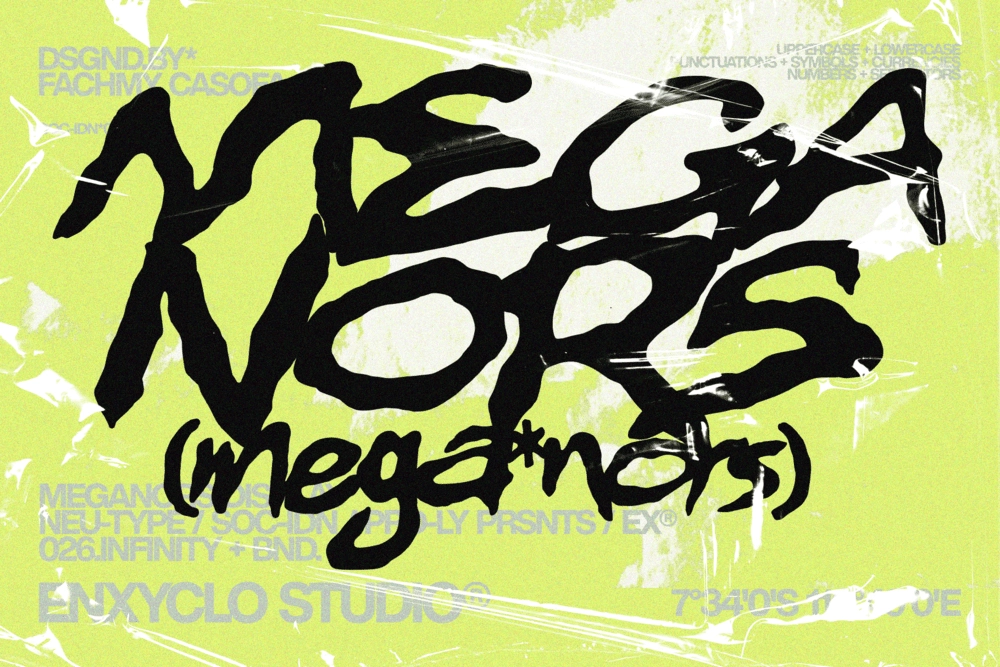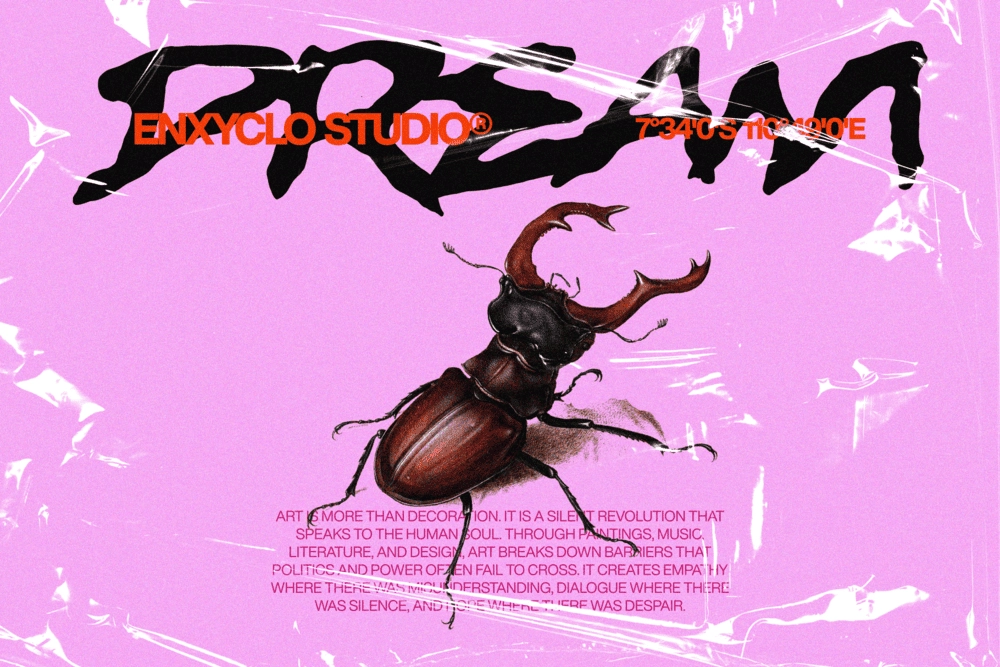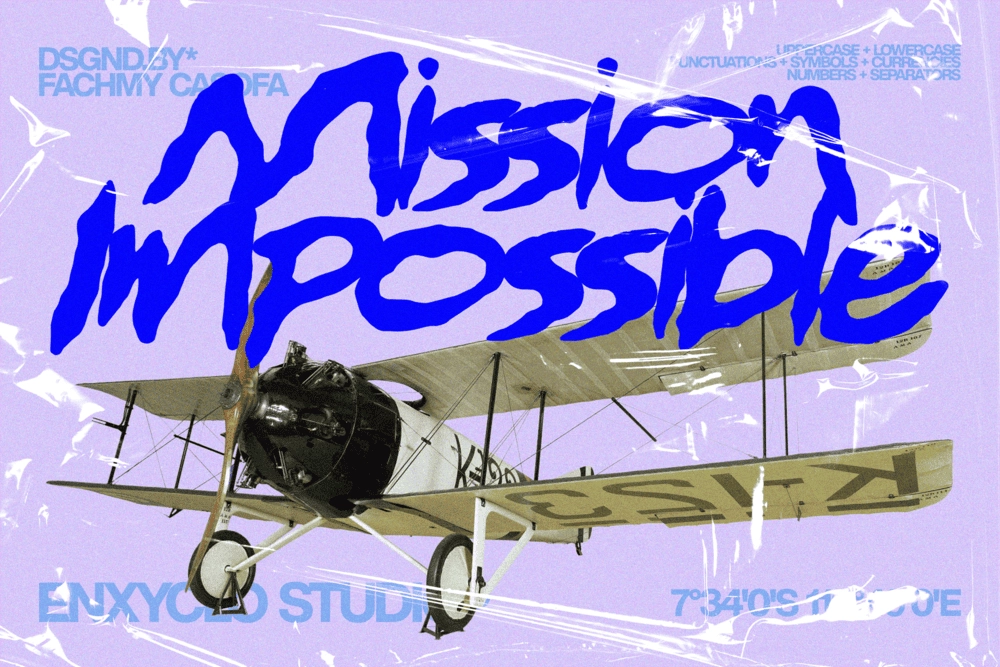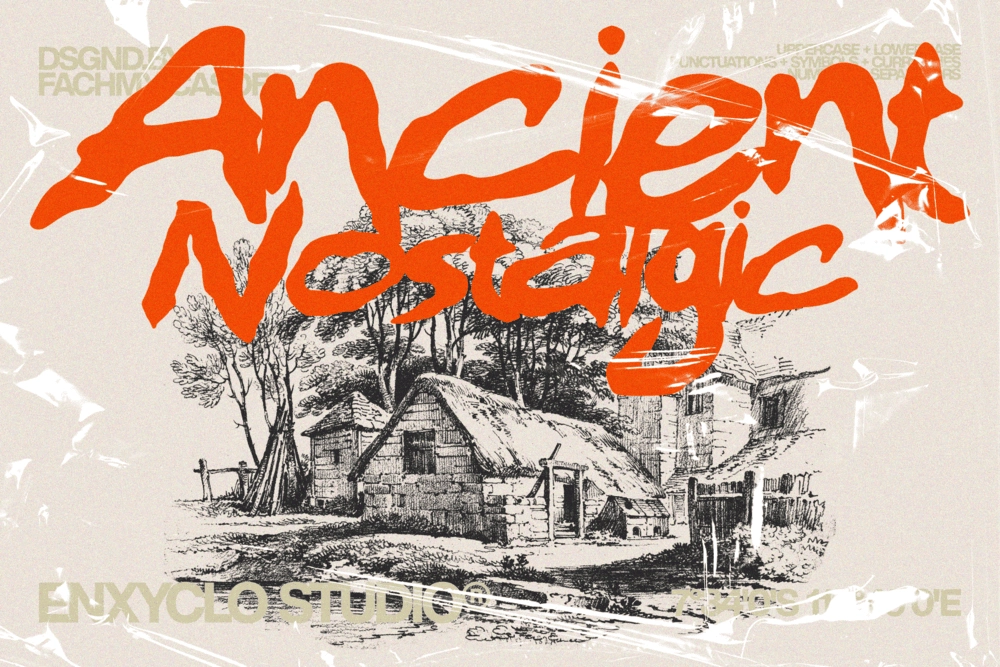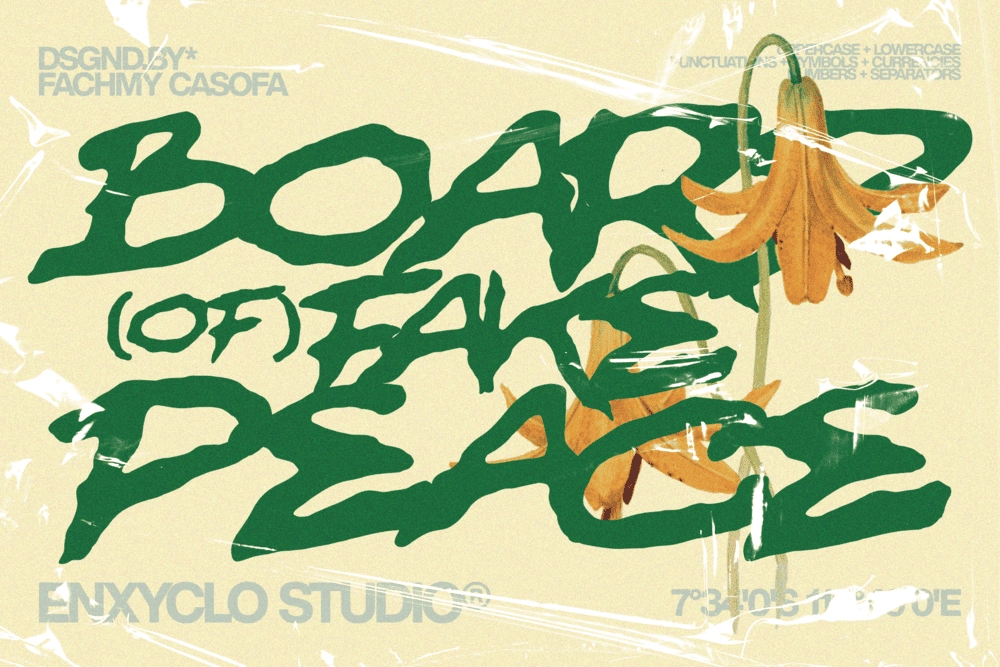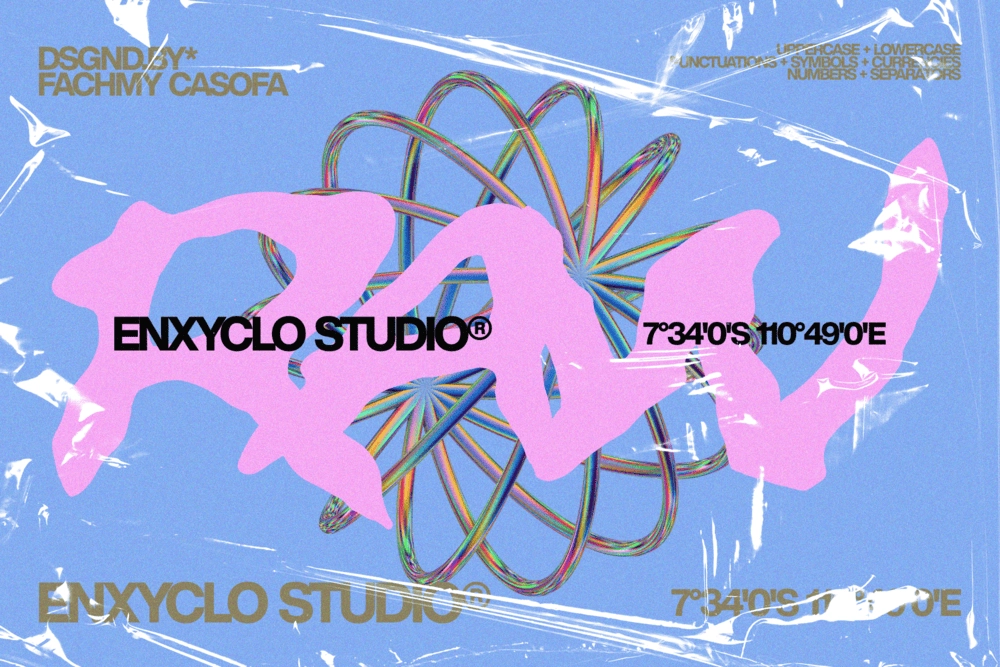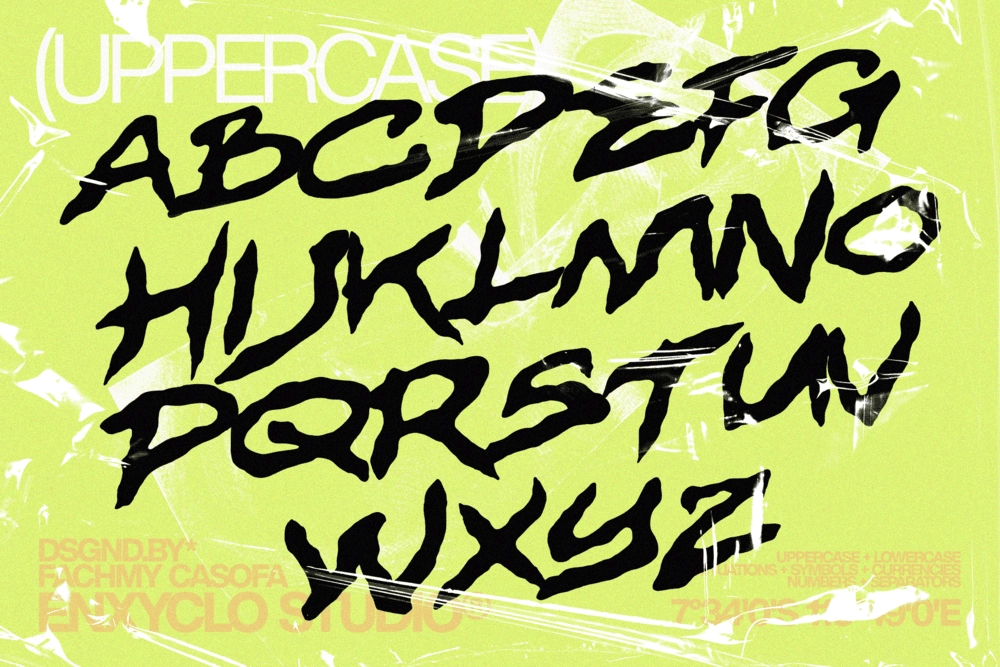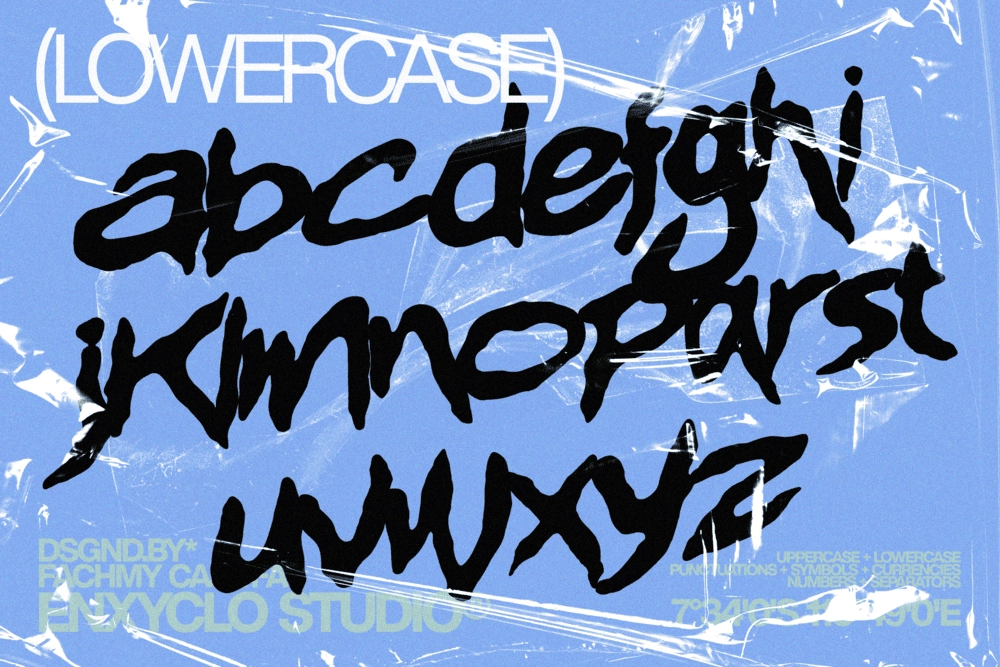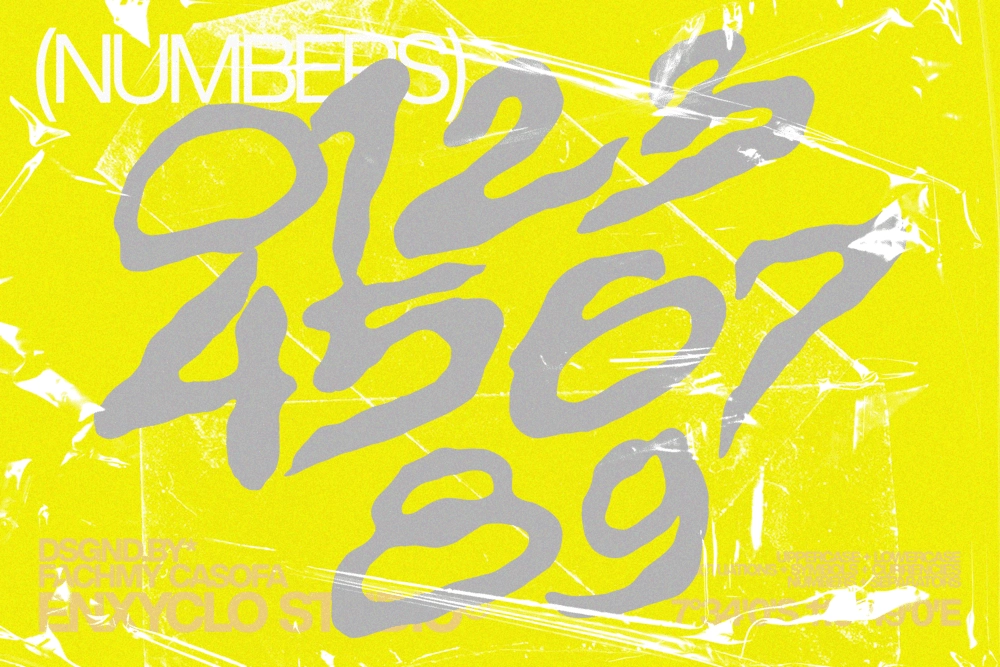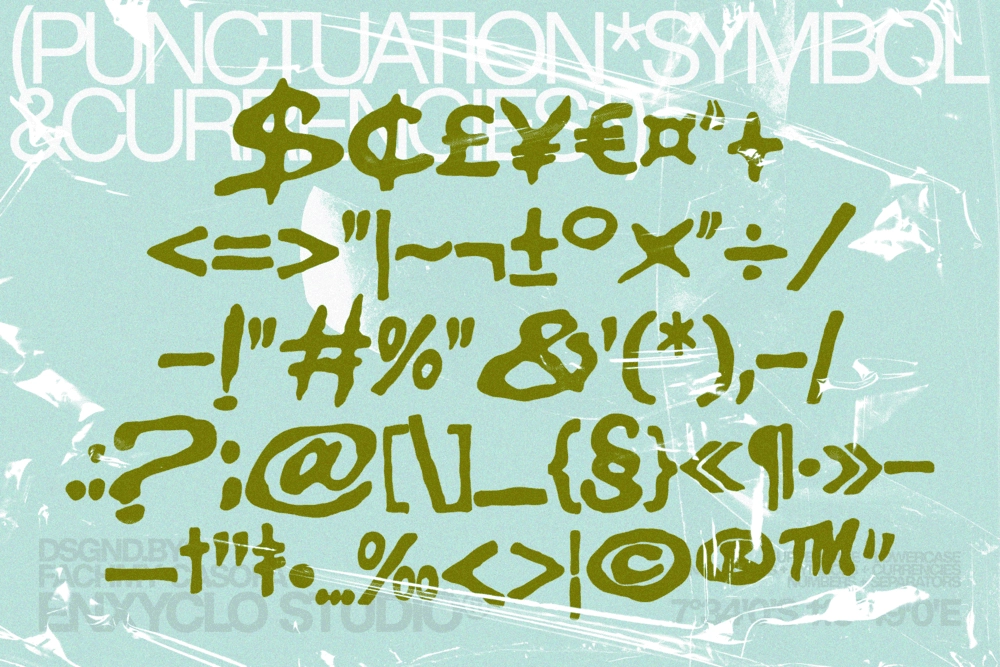
Meganors - Urban Brush Display Font
Meganors - Urban Brush Display Font is a bold and expressive brush typeface crafted to bring raw energy and modern attitude into your designs. Inspired by hand-painted lettering and urban street aesthetics, it transforms imperfect strokes into a confident and contemporary visual statement.
Built on dynamic brush movement, every letter carries a sense of motion and individuality. The textured forms feel alive and organic, while a controlled structure ensures strong readability and balance. This contrast between rough expression and clean composition makes Meganors both striking and versatile.
Designed for creatives who want their work to stand out, Meganors delivers a powerful typographic voice that feels authentic, handcrafted, and unapologetically bold. It performs exceptionally well in branding, posters, and digital visuals where character and impact matter most.
• Expressive Brush Lettering Style